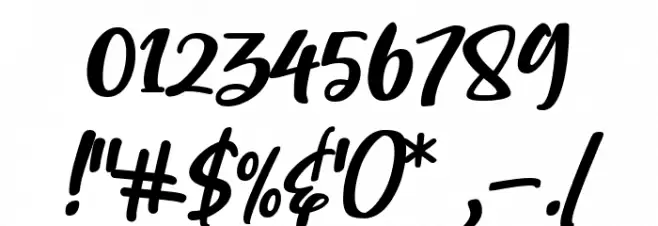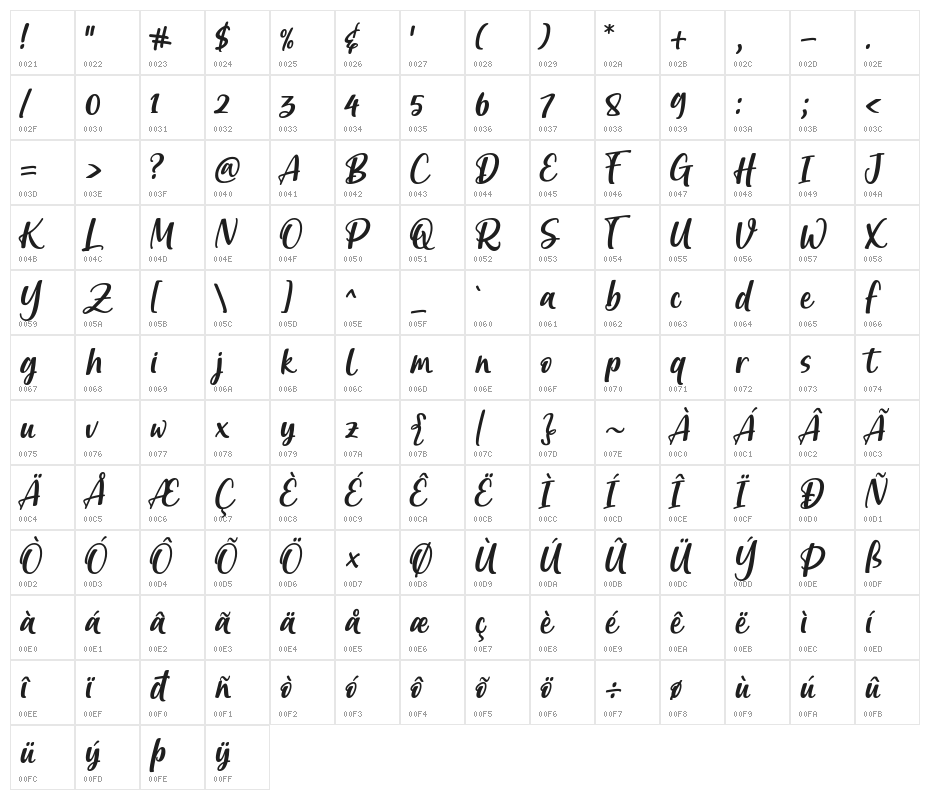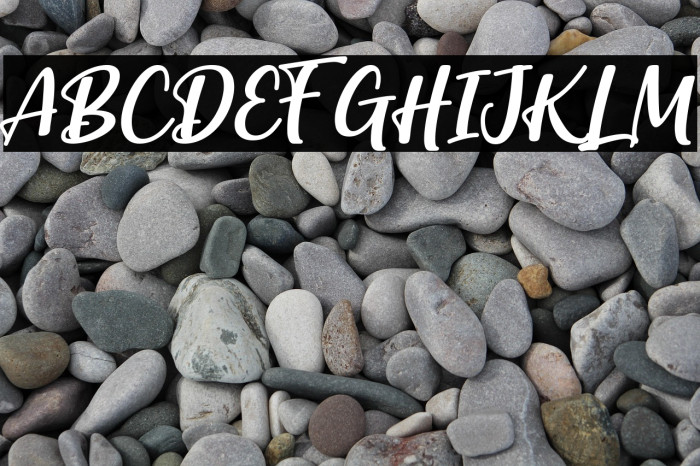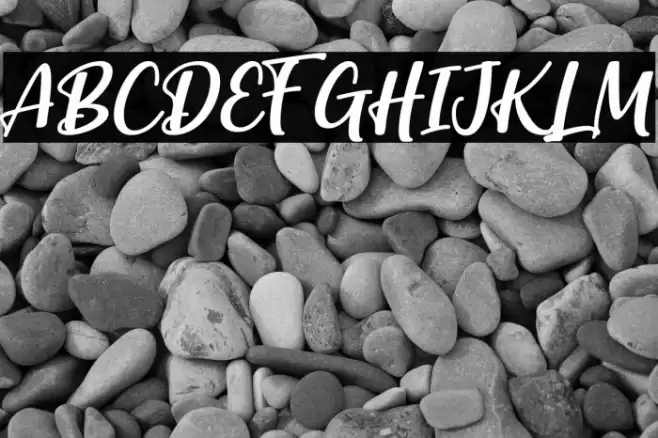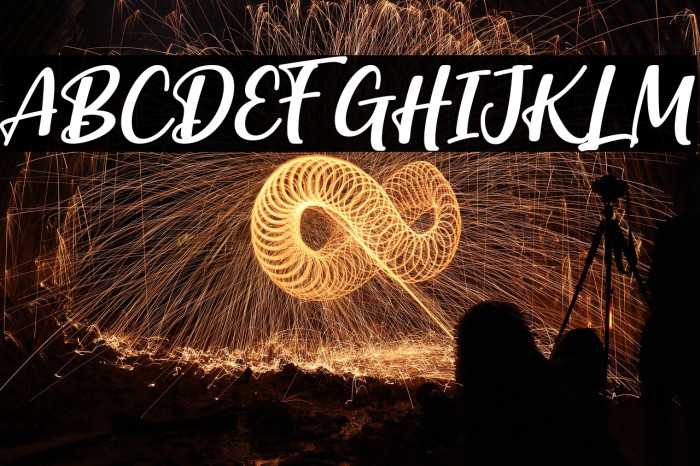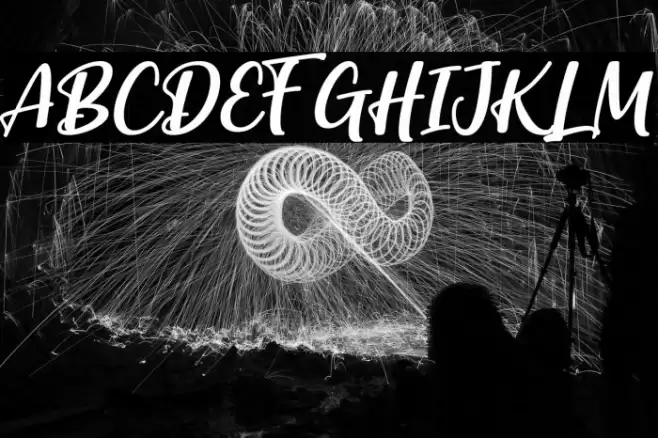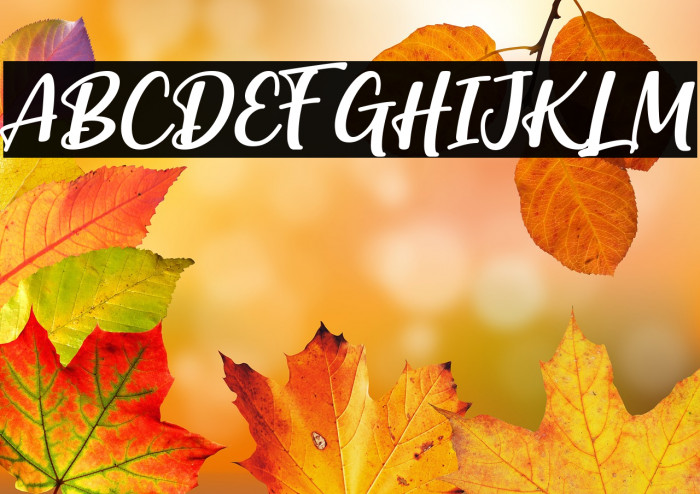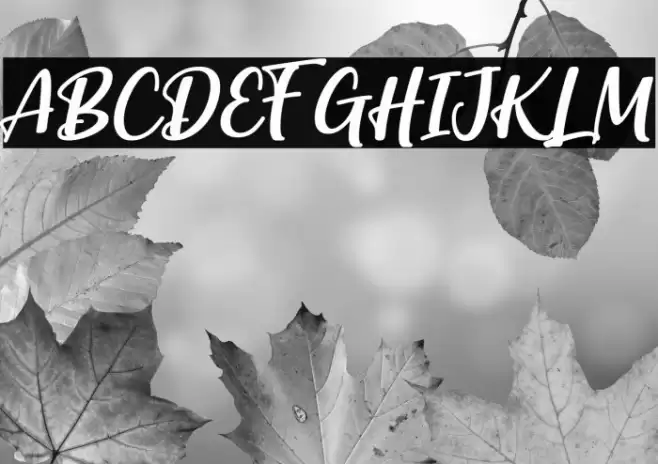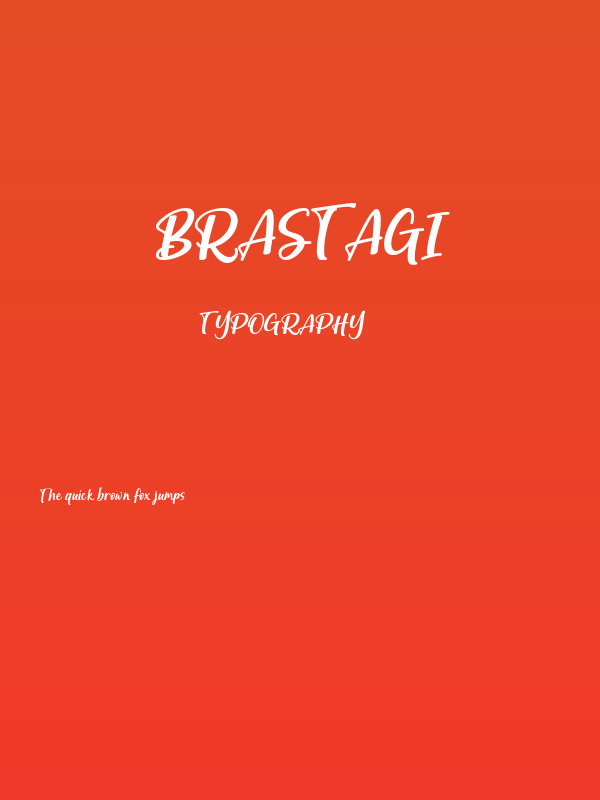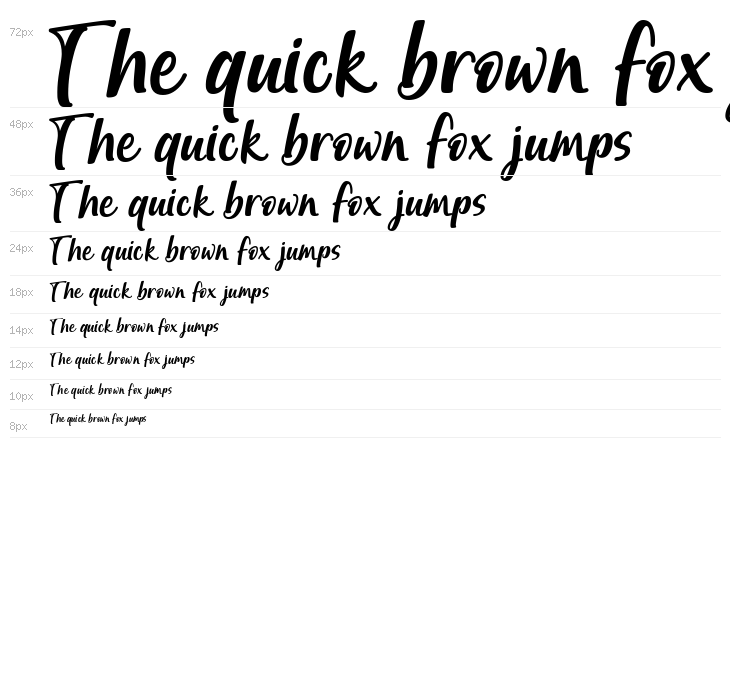
Brastagi Font
Brastagi Description
This font exhibits a lively and dynamic script style, characterized by its fluid and cursive letterforms. The uppercase letters are bold and slightly slanted, giving a sense of movement and elegance. The lowercase letters maintain a consistent flow, with smooth connections between characters, enhancing readability while retaining a handwritten feel. The numerals are well-integrated, matching the overall style with a playful yet sophisticated appearance. Special characters are creatively designed, adding to the font's versatility. The overall impression is one of modernity blended with a touch of classic calligraphy.